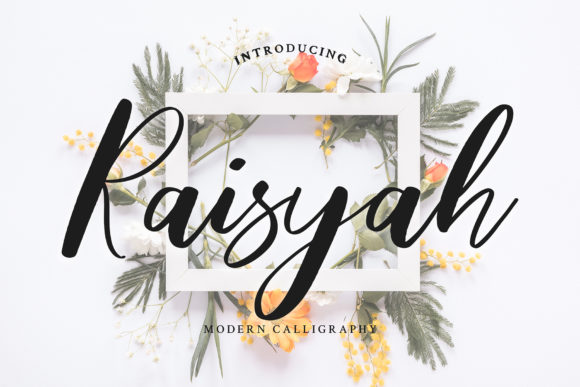
Prepare to be captivated by Raisyah Font, a script font that's as stunning as it is sophisticated. This remarkable typeface is ready to transform your creative projects into visual masterpieces, making every line and curve dance with elegance.
Picture this: your wedding invitations, thank you cards, and heartfelt quotes adorned with the alluring charm of Raisyah Font. The font's graceful strokes will infuse a touch of timeless grace into every word, leaving a lasting impression on the hearts of your loved ones.
But it doesn't stop there. Raisyah Font transcends the boundaries of wedding stationery, seamlessly enhancing logos, business cards, and any project yearning for a handwritten flair. Its versatility knows no bounds, adapting effortlessly to a symphony of design genres, from the classic and timeless to the modern and trendy.
With Raisyah Font, you're not just downloading a font; you're embracing an artistic journey, a chance to unlock your creative potential and leave an unforgettable mark on the world. Its remarkable ability to weave magic into the ordinary will redefine your design experience, transforming every project into a symphony of visual delight.
The beauty of Raisyah Font lies in its intricate details, the carefully crafted curves and swashes that whisper elegance and sophistication. Each letter dances harmoniously with the next, creating a cohesive masterpiece that commands attention without demanding it.
Let Raisyah Font take center stage in your design endeavors, allowing it to showcase its captivating personality. Whether you're a seasoned designer or just starting your creative journey, Raisyah Font is the perfect partner, ready to elevate your designs to awe-inspiring heights.
So, dive into the world of Raisyah Font and let your creativity soar. Its enchanting allure will leave you breathless, its versatility will become your muse, and its timeless beauty will forever hold a place in your design repertoire. Discover the magic that awaits, download Raisyah Font today, and let it transform your creative dreams into stunning realities.